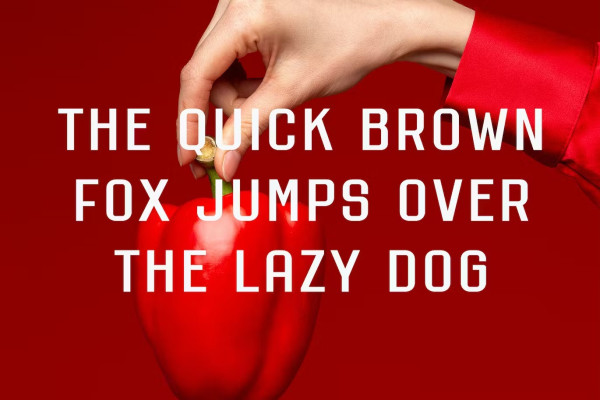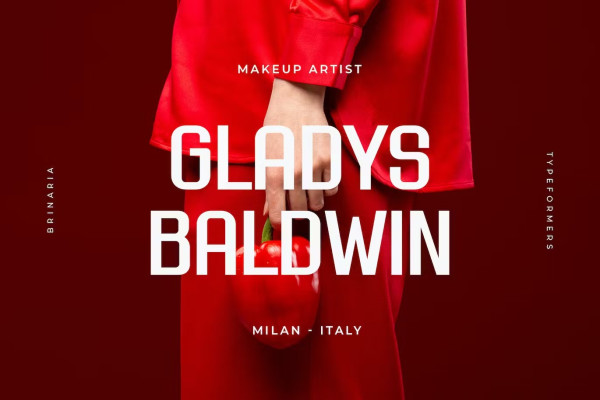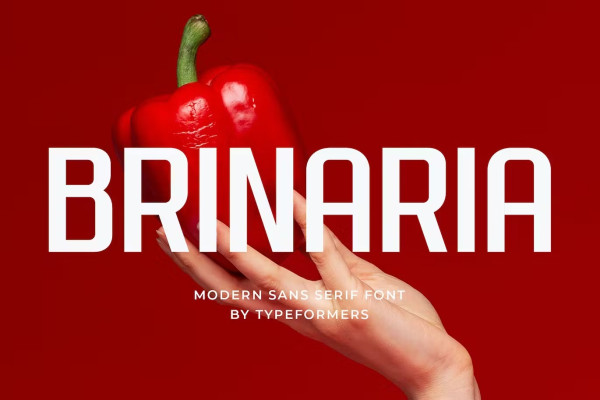
Brinaria Font
Brinaria Font is a modern and simple font, best used as a display for headings, logos, branding, magazines, product packaging and invitations.